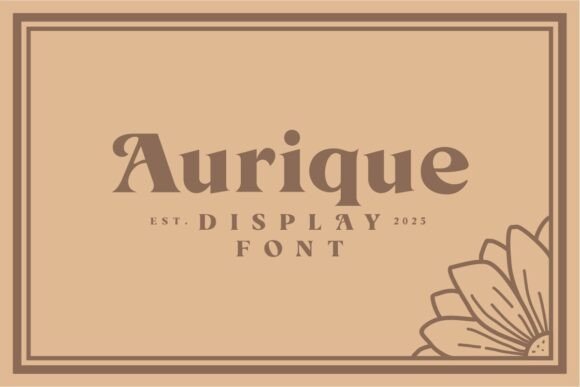
The Aurique Font: Elevate Your Designs with Timeless Elegance
A Personal Review of Aurique
- ✨ Confidence and Sophistication: Aurique’s curves and contours radiate confidence, calm, and enduring sophistication, making it perfect for refined visual spaces.
- ✅ Classic Luxury with a Modern Twist: This font seamlessly blends traditional luxury with a hint of modern elegance, giving it a unique edge.
- 💡 Attention-Grabbing: Aurique is designed to command attention, making it ideal for headings, titles, and statements that need to leave a lasting impression.
While Aurique is an exceptional font, there are a few minor considerations to keep in mind:
- ⚠️ Legibility at Small Sizes: As with many display fonts, Aurique’s legibility may decrease at smaller font sizes. It’s best used at larger sizes (24px and above) for optimal impact.
- 🤔 Pairing with Other Fonts: Due to its distinctive style, Aurique may require careful pairing with other fonts to maintain visual harmony. Experiment with complementary fonts to find the perfect match.
The Story Behind Aurique
Aurique was designed with the intention of creating a font that embodies timeless elegance and sophistication. Inspired by classic luxury typography, the designer aimed to craft a font that would command attention while exuding calm and confidence. With its unique blend of traditional and modern elements, Aurique has become a versatile font suitable for a wide range of design applications.
| What is Aurique’s primary use case? | Aurique is designed for display purposes, making it ideal for headings, titles, and statements that require attention and sophistication. |
| Can I use Aurique for body text? | While Aurique is not designed for body text, it can be used for short paragraphs or captions. However, for optimal readability, consider pairing it with a complementary font for body text. |
| Is Aurique suitable for digital use? | Yes, Aurique is optimized for digital use and can be used for various applications, including website headers, social media graphics, and digital advertising. |